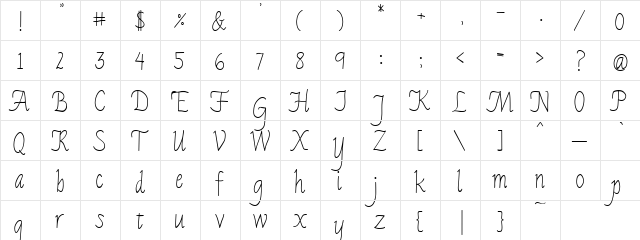
PC Italic Lines Regular
Design Context for PC Italic Lines Typeface
PC Italic Lines takes a measured approach to typography — its balanced proportions and neutral character make it a reliable workhorse for both digital and print work. Its italic angle brings a sense of urgency and motion to the letterforms.